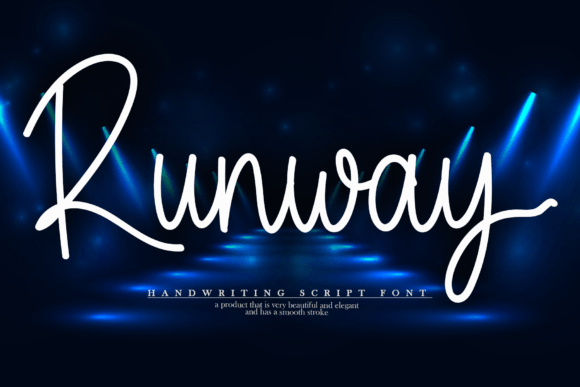
Behold, Runway Font – the epitome of grace and elegance, a font family born from the very essence of handwritten beauty. This script font is meticulously crafted to mimic the natural flow of pen strokes, with every curve and line exuding a touch of effortless artistry.
Dive into a world of boundless creativity as you explore the enchanting possibilities of Runway Font. Let your imagination soar, transforming ordinary words into captivating expressions, and mundane designs into masterpieces. Whether you're a seasoned designer or just starting your creative journey, Runway Font will guide you with its intuitive charm and limitless versatility.
Picture this – a wedding invitation adorned with Runway Font's delicate swirls, carrying the promise of love and forever. Thank you cards penned with Runway Font's heartfelt strokes, conveying gratitude with a personal touch. Logos and business cards designed with Runway Font's refined elegance, leaving a lasting impression of professionalism and sophistication. And that's just the beginning.
Runway Font's allure lies in its ability to breathe life into your designs. It's not just a font; it's an experience that captures the essence of handwritten artistry and transforms it into a digital masterpiece. With Runway Font, your words will dance and your designs will sing, captivating hearts and leaving a trail of admiration wherever they go.
So, embark on this creative odyssey with Runway Font as your faithful companion. Let your imagination run wild, explore the endless possibilities, and create designs that speak to the soul. Elevate your projects to new heights of beauty and elegance, for Runway Font is not just a font – it's an invitation to let your creativity take flight.